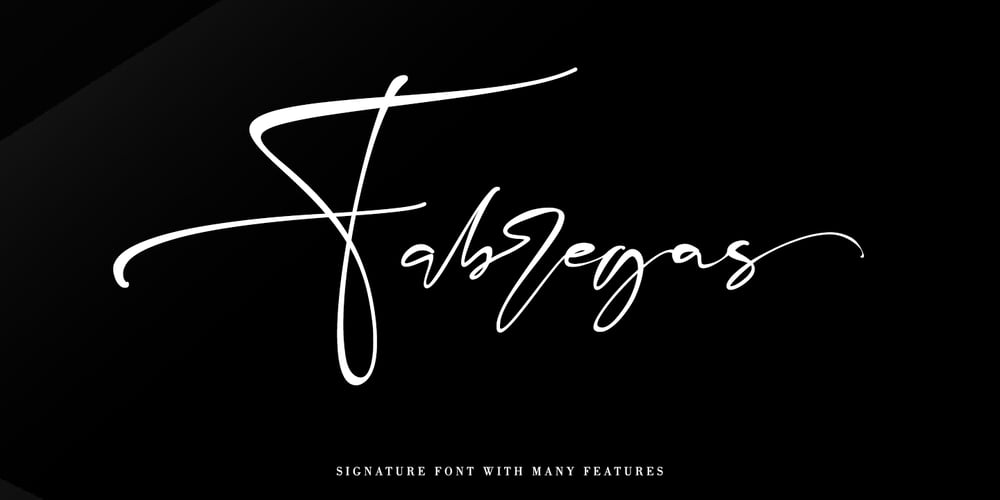
Fabregas Font Family was designed by Thomas Aradea and published by Letterara. Fabregas contains 2 styles and family package options. Fabregas is a handwritten signature font with a natural & stylish flow. It will add an authentic touch to any design idea. This fonts comes in Regular and Italic and has many features such as Alternates, Swash, 101 Ligatures and Multi-Lingual support (ä ö ü Ä Ö Ü ß ¿ ¡). Fabregas works both on Mac & PC, is simple to install and accessible in Adobe Illustrator, Adobe Photoshop, Adobe InDesign, CorelDraw, even work on Microsoft Word. To access the alternate glyphs, you need a program that supports OpenType features such as Adobe Illustrator CS, Adobe Photoshop CC, Adobe Indesign and CorelDraw. More information about how to access alternate glyphs, check out this link (http://goo.gl/ZT7PqK).